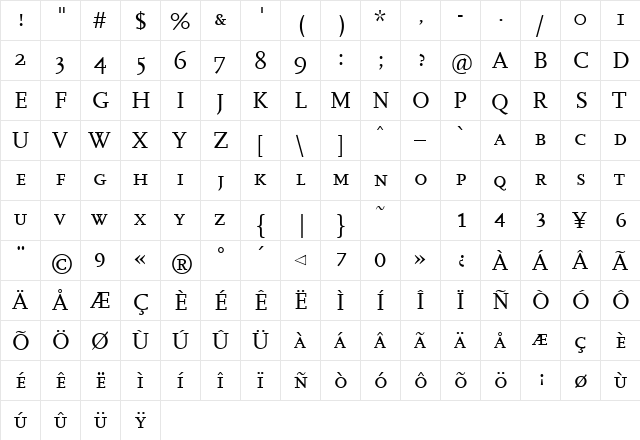
FFScala-Caps Regular Font Preview
FFScala-Caps Regular
FFScala-Caps Regular Font Details
Design Context for FFScala-Caps Typeface
FFScala-Caps is a composed and adaptable typeface that performs quietly and consistently across a wide range of design contexts.
Pro Tip: Use FFScala-Caps in both headline and body roles to test its range before committing to a single application.